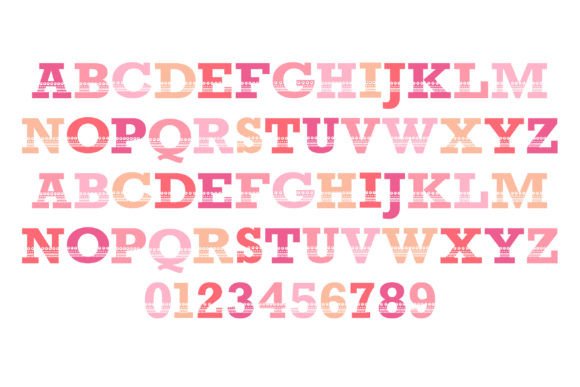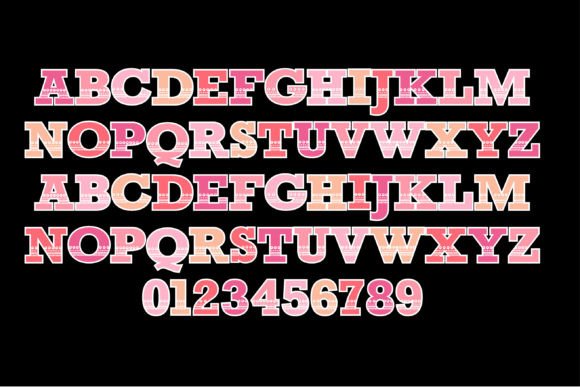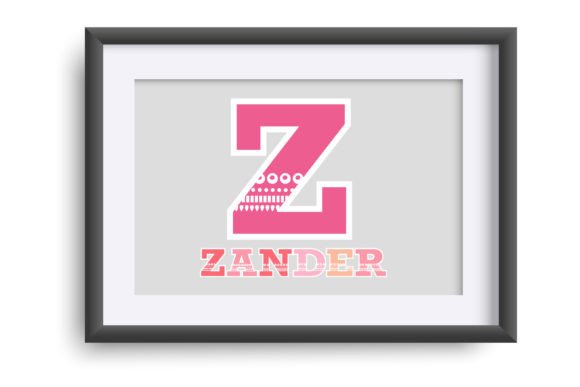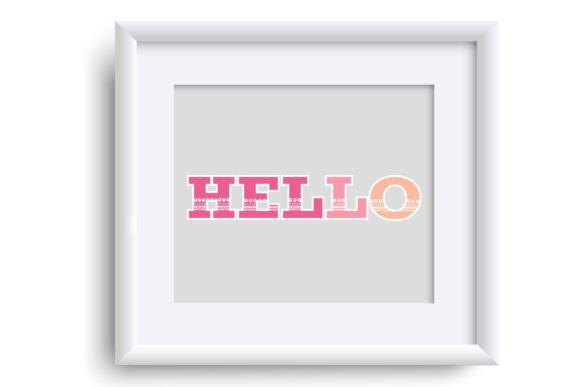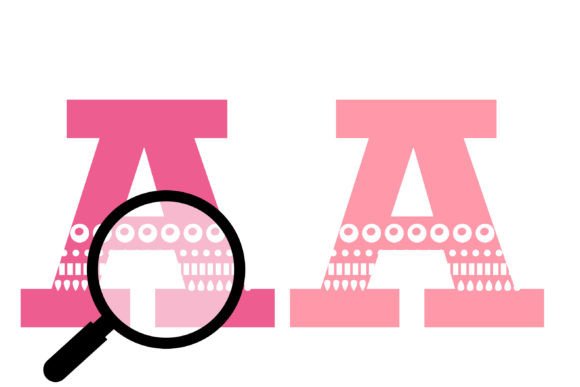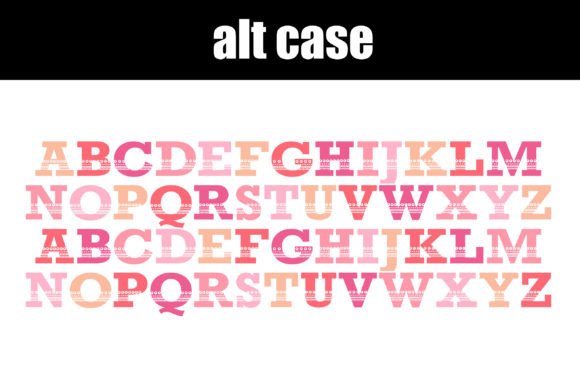
Introduction to Simply Pink Font Font
Fonts play a crucial role in design, and the Simply Pink Font font is a typeface that brings both character and versatility to any project. Whether you’re working on a branding project, a website, or a print design, the Simply Pink Font font offers a unique style that can elevate your work.
This full-color font features chunky slab serif lettering with creamy designs throughout.
There is an alt version of each letter in a different color that you can access through your system or Silhouetteβs character map If you are looking for a versatile, high-quality font that can be used for a variety of projects, then a full-color SVG font is the perfect choice for you.
The Simply Pink Font font is more than just a typeface β it’s a design tool that helps you communicate your message with style and clarity. Its unique character set and versatile design make it suitable for a wide range of applications, from elegant invitations to bold headlines.
With its carefully crafted letterforms and balanced proportions, the Simply Pink Font font ensures readability and visual appeal across all mediums.
The Simply Pink Font font stands out with its unique design, exceptional readability, and versatility across various design applications.